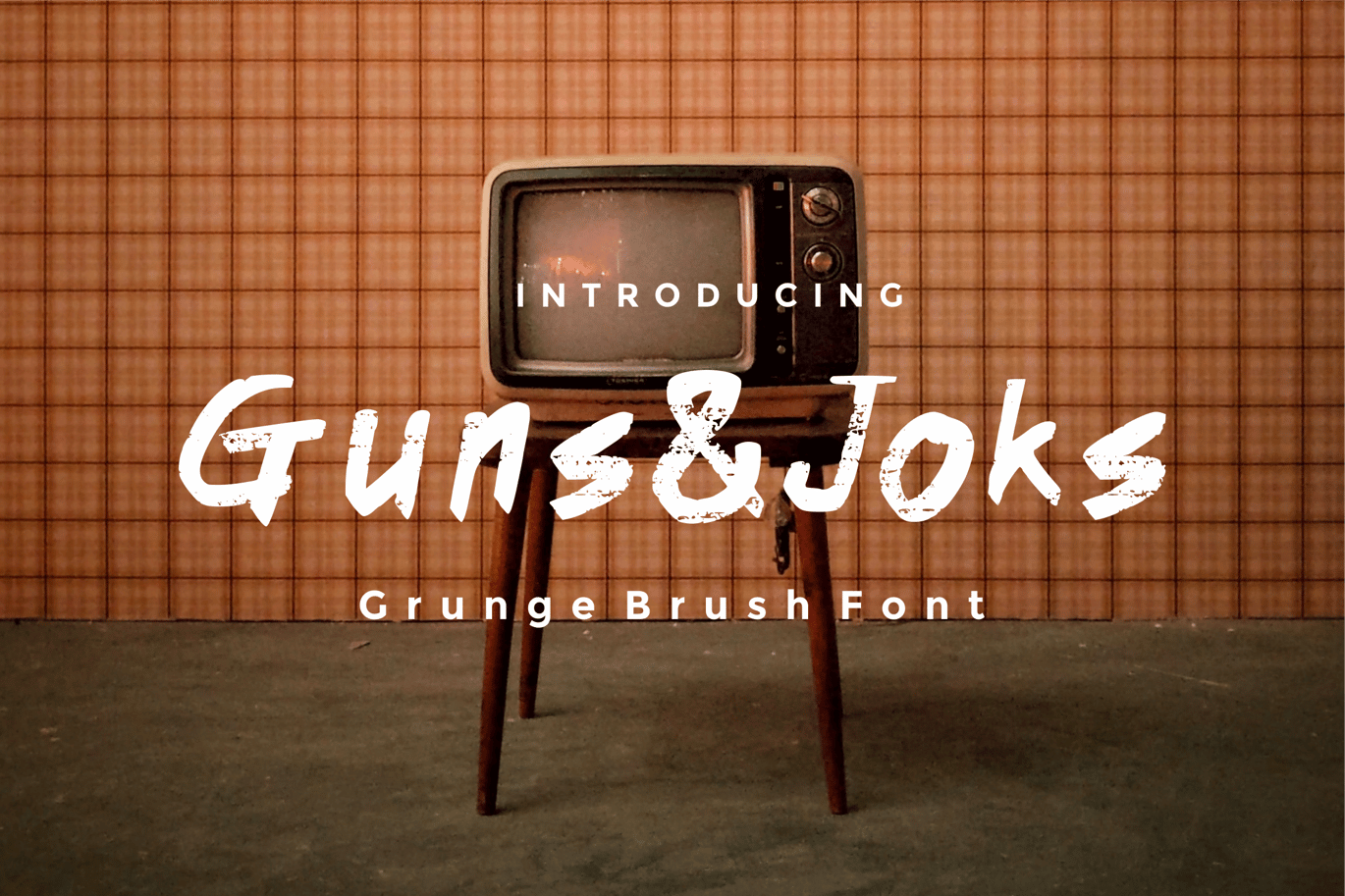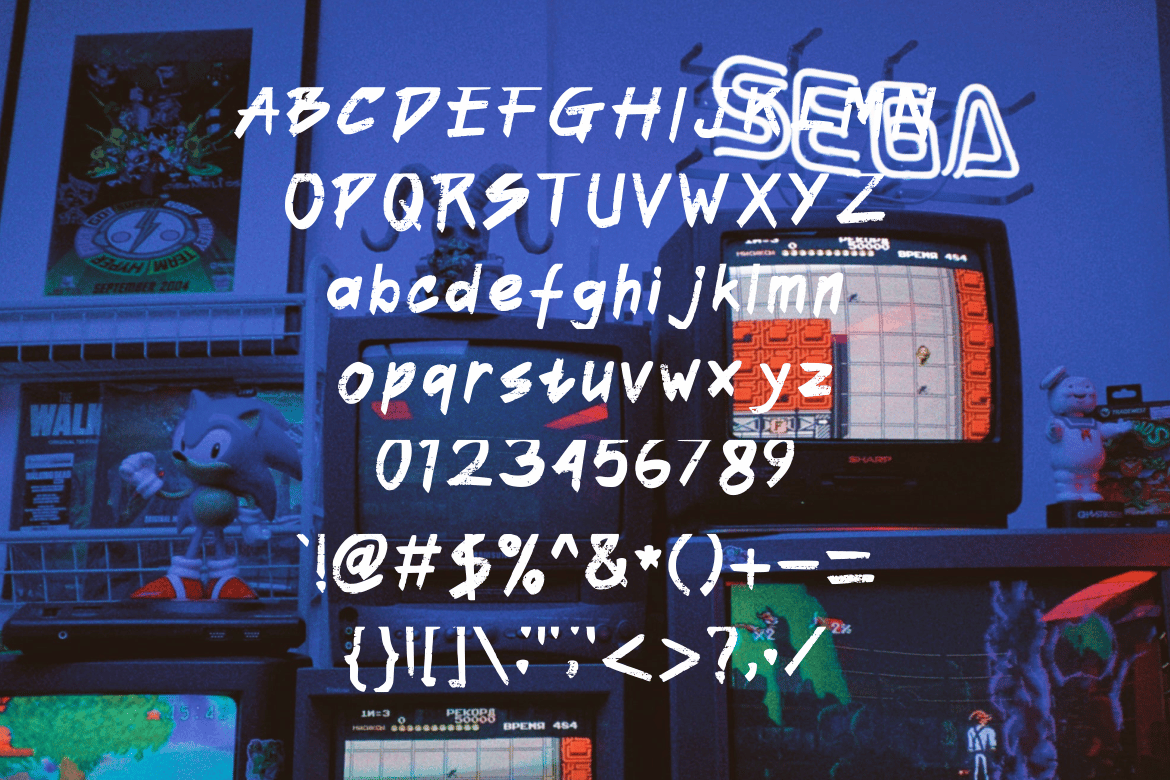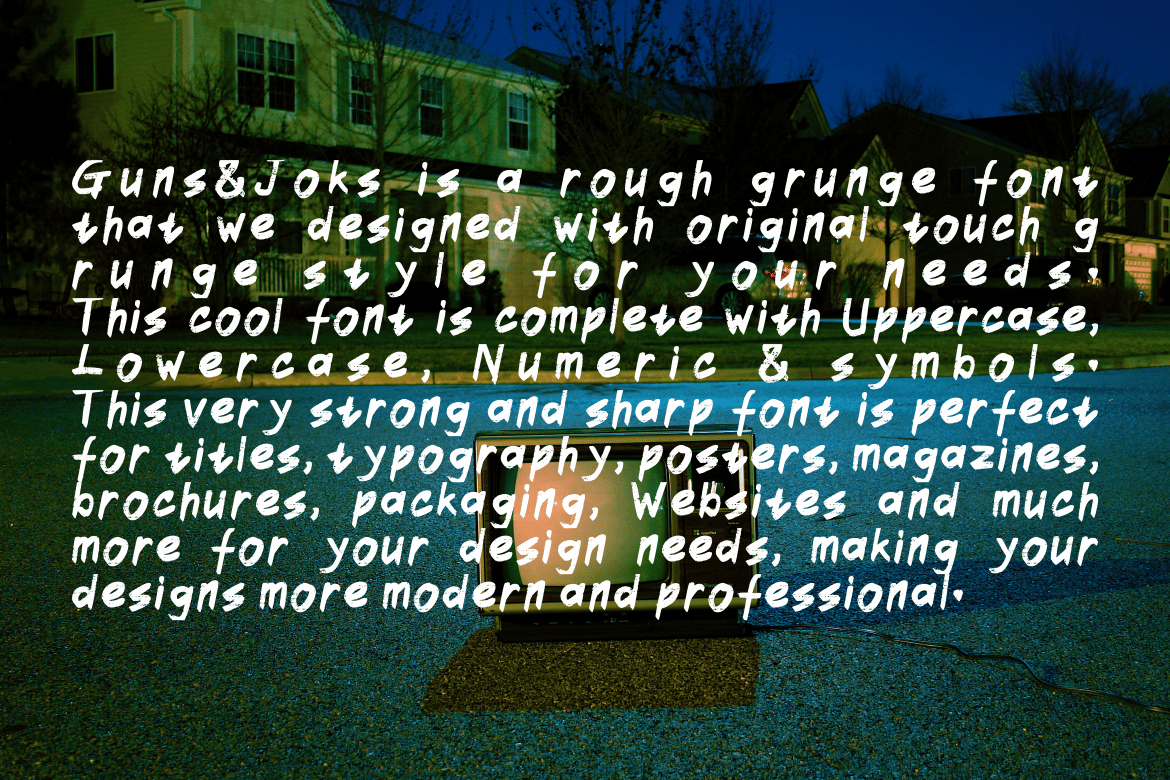
Guns&Joks Brush Grunge Font
Guns&Joks is a rough grunge font that we designed with original touch grunge style for your needs.
This cool font is complete with Uppercase, Lowercase, Numeric & symbols. This very strong and sharp font is perfect
for titles, typography, posters, magazines, brochures, packaging, Websites and much more for your design needs, making your designs more cool.